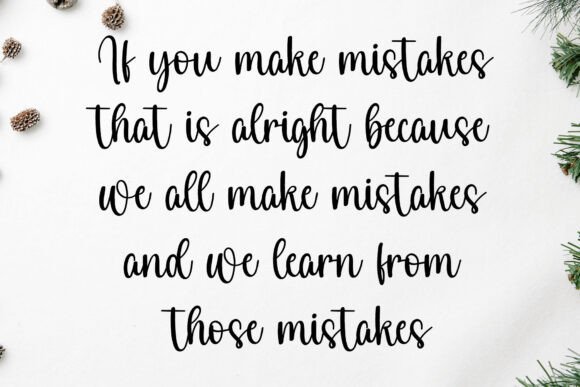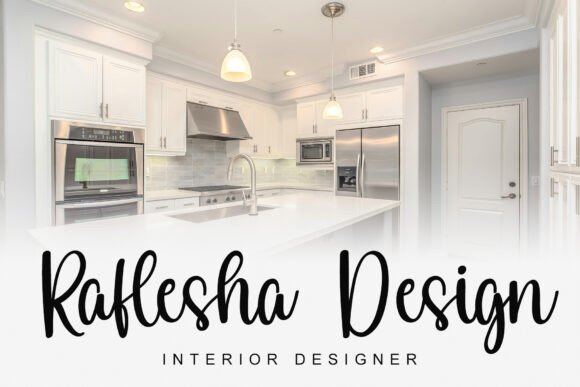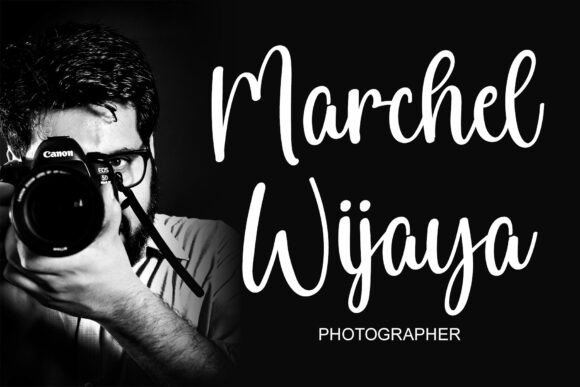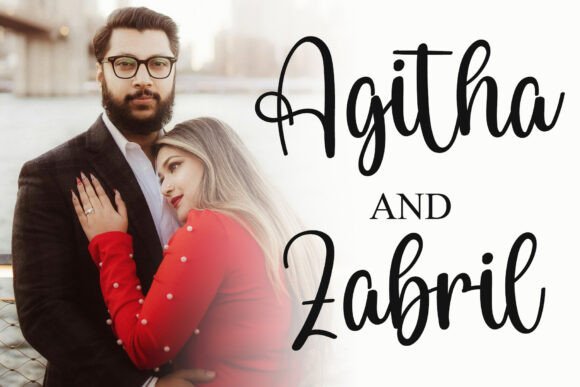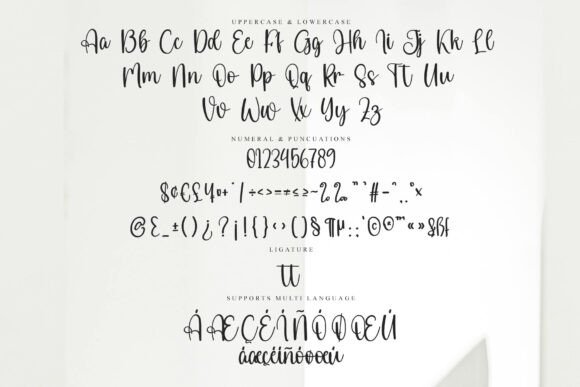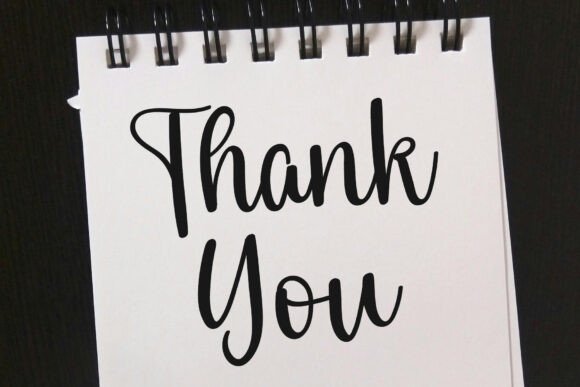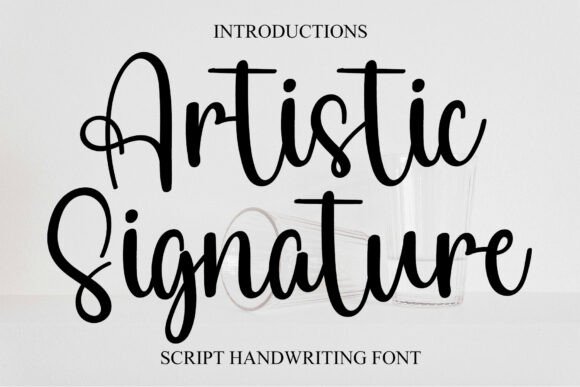
Introducing Artistic Signature Font: Elevate Your Designs with Elegance and Charm
In the world of design, a signature font can make all the difference in creating a lasting impression. For those seeking a touch of sophistication and elegance, Artistic Signature Font is the perfect choice. This beautiful script handwriting font is designed to deliver a natural yet refined feel, making it ideal for a variety of creative projects.
What is Artistic Signature Font?
Artistic Signature Font is a carefully crafted script font that mimics the fluidity and charm of handwritten text. Its unique and artistic strokes add a touch of personality to any design, making it perfect for personal branding, wedding invitations, logos, social media graphics, and more.
Key Features of Artistic Signature Font
• Elegant and Refined: Artistic Signature Font boasts a sophisticated and polished look, perfect for designs that require a touch of luxury and refinement.
• Natural and Authentic: The font’s flowing strokes and natural feel make it perfect for creating designs that require a personal and human touch.
• Versatile: Artistic Signature Font can be used for a wide range of design projects, from wedding invitations and logos to social media graphics and personal branding.
• Easy to Read: Despite its artistic and cursive nature, Artistic Signature Font remains highly legible, making it perfect for designs that require a clear and concise message.
Artistic Signature Font is a versatile tool that can be used by designers and crafters alike. Whether you’re creating custom wedding invitations, designing a logo for a client, or simply looking to add a personal touch to your social media graphics, this font is sure to impress.
Use Cases for Artistic Signature Font
• Wedding Invitations: Add a touch of elegance and sophistication to your wedding invitations with Artistic Signature Font.
• Personal Branding: Create a unique and memorable brand identity with Artistic Signature Font, perfect for entrepreneurs, bloggers, and small business owners.
• Logos: Use Artistic Signature Font to create a custom logo that reflects your brand’s personality and style.
• Social Media Graphics: Add a personal touch to your social media graphics, such as Instagram stories, Facebook posts, and Twitter headers.
Tips for Using Artistic Signature Font
To get the most out of Artistic Signature Font, here are a few tips to keep in mind:
• Use it sparingly: Artistic Signature Font is best used sparingly, such as in headings or titles, to create a lasting impression.
• Pair it with a sans-serif font: Pairing Artistic Signature Font with a sans-serif font can create a beautiful contrast and add visual interest to your design.
• Experiment with colors: Artistic Signature Font looks stunning in a variety of colors, so don’t be afraid to experiment and find the perfect hue for your design.
Artistic Signature Font is a beautiful and sophisticated script handwriting font that can elevate your designs to the next level. With its natural and elegant feel, it’s perfect for a wide range of creative projects, from personal branding and wedding invitations to logos and social media graphics. Whether you’re a designer or crafter, Artistic Signature Font is sure to become a valuable addition to your design toolkit.